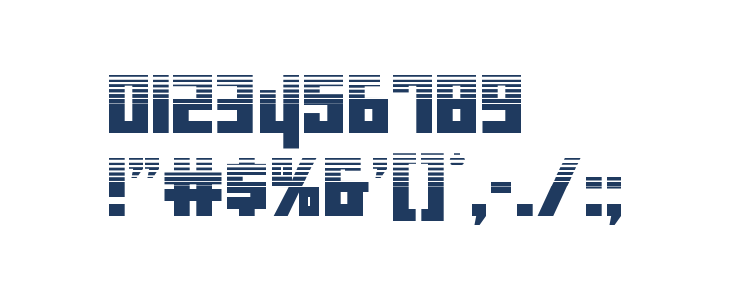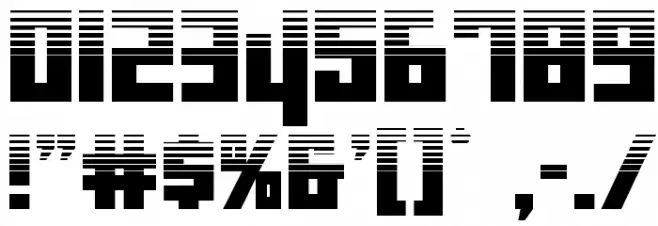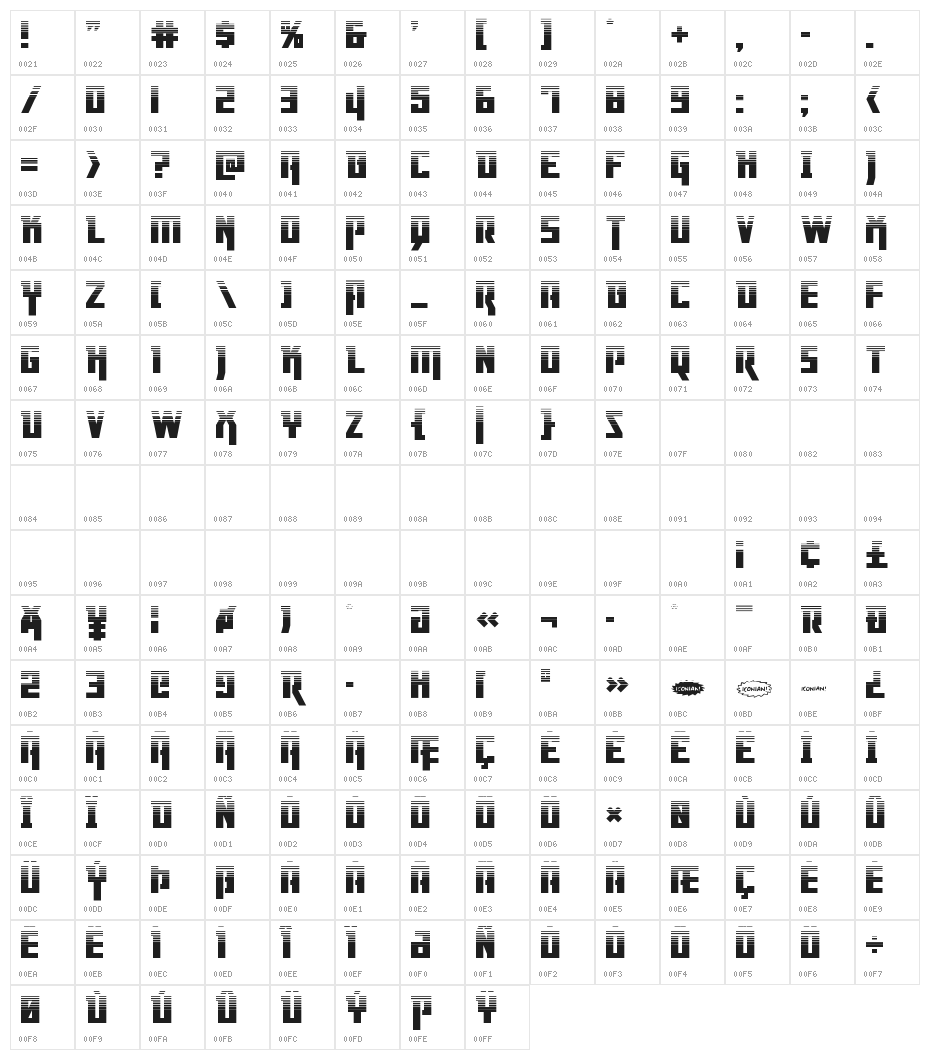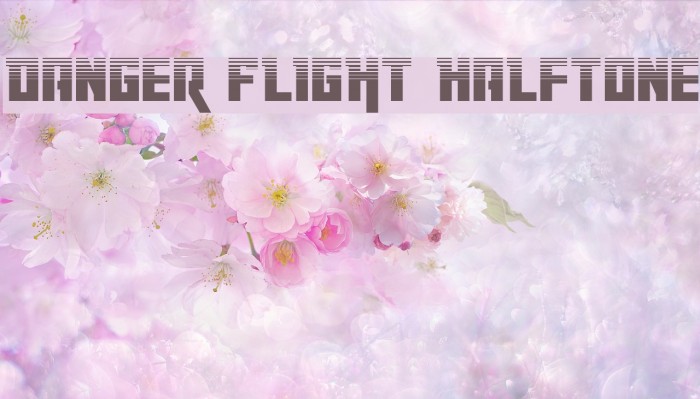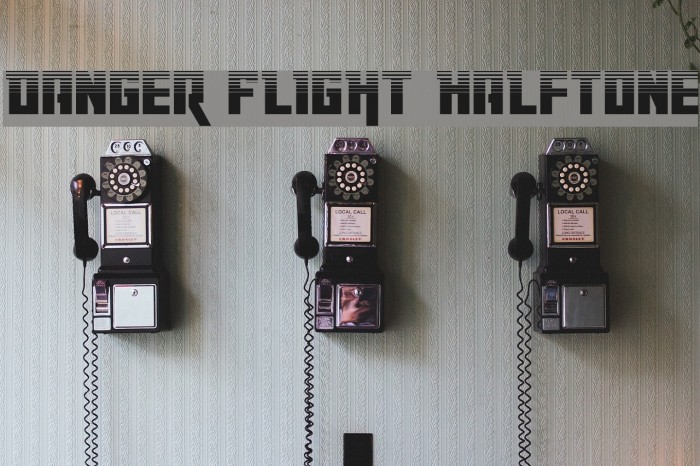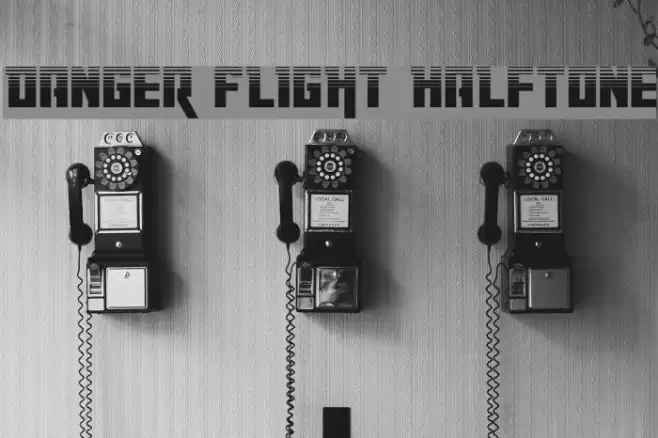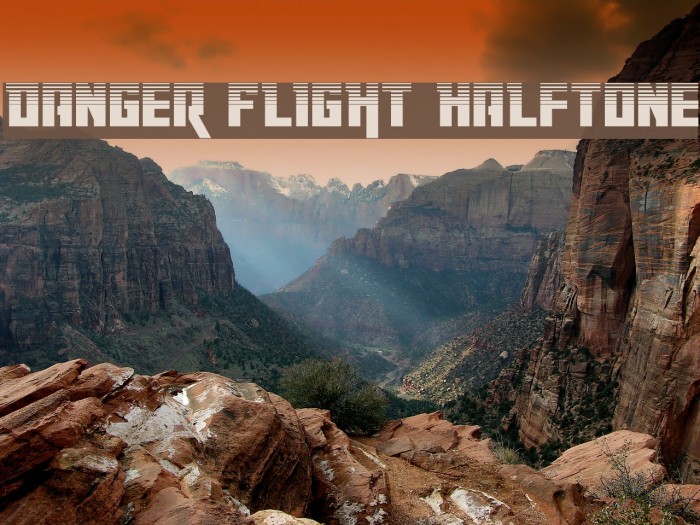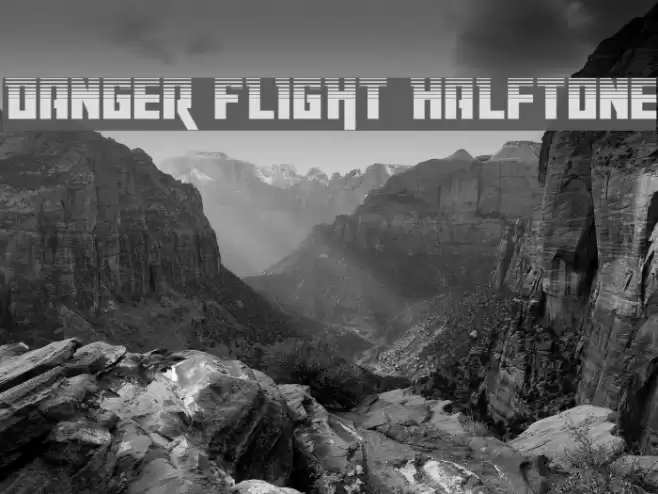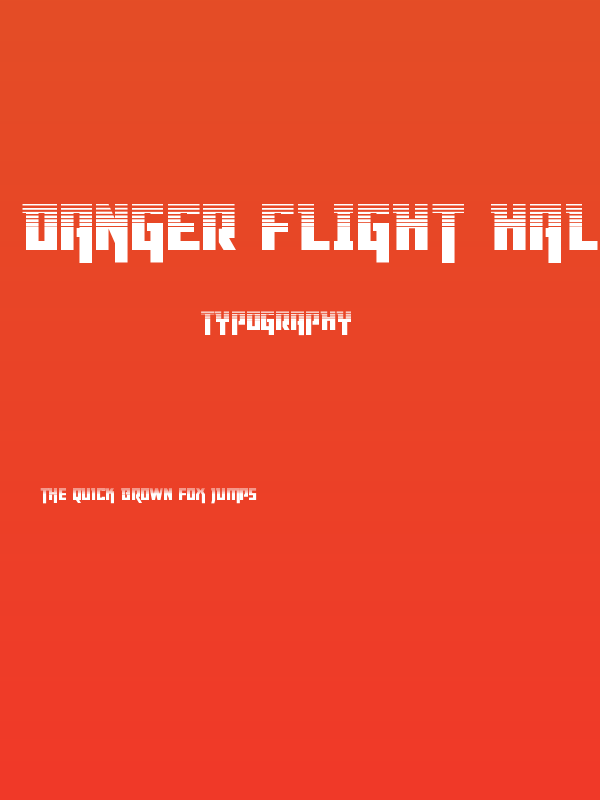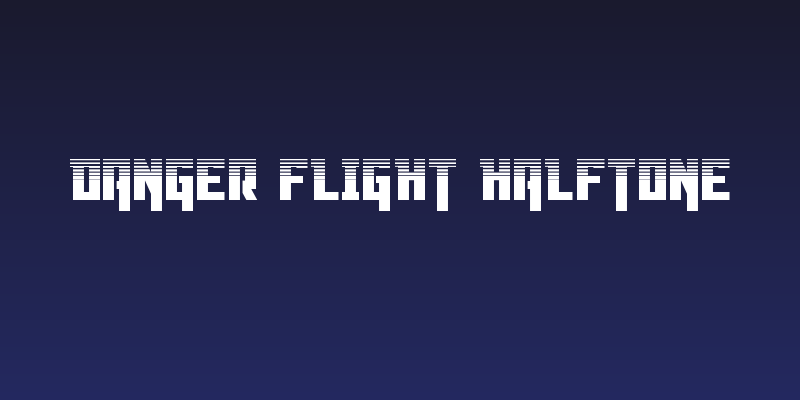
Danger Flight Halftone Font
Danger Flight Halftone Description
This font features a bold and striking design with a futuristic and industrial feel. The characters are constructed with a series of horizontal lines that create a halftone effect, giving it a unique, layered appearance. The uppercase letters are angular and geometric, with sharp edges and a strong presence. The numbers and special characters follow the same design principles, ensuring consistency across the font. This style is reminiscent of digital or technological themes, making it ideal for projects that require a modern and edgy look.
| Proposed Projects | Ideal for technology branding, sci-fi posters, video game titles, and digital art projects. |